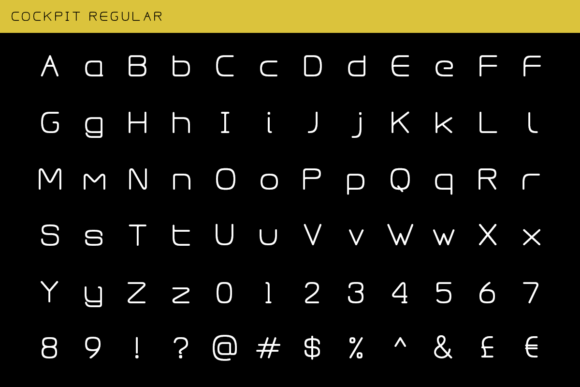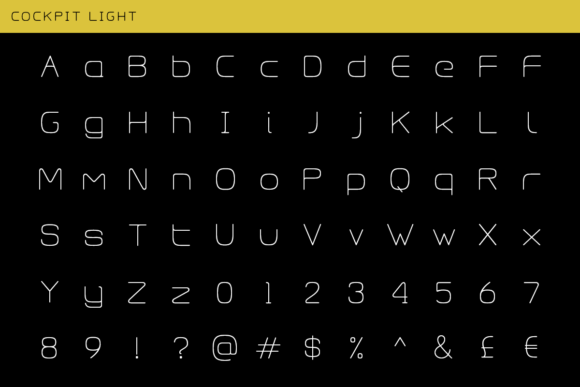
Cockpit Font: Elevate Your Design to New Heights
The name says it all – whether you are a jet pilot or a spacecraft fighter, this font will lift your creativity up to the sky! The Cockpit Font is a unique and stylish typeface that is perfect for designers and crafters looking to add a touch of adventure and excitement to their projects.
What is Cockpit Font?
The Cockpit Font is a modern sans-serif font that is inspired by the sleek and futuristic design of aircraft cockpits. Its clean lines, bold shapes, and precise curves make it a versatile font that can be used for a wide range of applications, from aviation-themed designs to futuristic and high-tech projects.
Key Features of Cockpit Font
- Unique and Stylish Design: The Cockpit Font has a distinctive and stylish design that sets it apart from other fonts. Its bold shapes and precise curves give it a futuristic and high-tech look that is perfect for designs that require a sense of adventure and excitement.
- Highly Versatile: The Cockpit Font is a highly versatile font that can be used for a wide range of applications, from aviation-themed designs to futuristic and high-tech projects. It’s perfect for designers and crafters who want to add a touch of excitement and adventure to their work.
- Easily Readable: Despite its bold and futuristic design, the Cockpit Font is easily readable, even at small sizes. This makes it perfect for use in body text, headings, and titles.
- Supports Multiple Languages: The Cockpit Font supports multiple languages, making it a great choice for designers and crafters who work with international clients or want to create designs that appeal to a global audience.
Use Cases for Cockpit Font
The Cockpit Font is perfect for a wide range of design projects, including:
- Aviation-themed Designs: The Cockpit Font is a natural fit for aviation-themed designs, such as posters, flyers, and brochures for airlines, airports, or aviation companies.
- Futuristic and High-Tech Projects: The Cockpit Font’s futuristic and high-tech design makes it perfect for projects that require a sense of innovation and excitement, such as tech startup branding, robotics, or artificial intelligence designs.
- Outdoor and Adventure Designs: The Cockpit Font’s bold and adventurous design makes it perfect for outdoor and adventure-themed designs, such as posters, flyers, and brochures for outdoor gear companies, hiking trails, or adventure travel companies.
Tips for Using Cockpit Font
Here are some tips for using the Cockpit Font in your designs:
- Use it as a Headline Font: The Cockpit Font is perfect for use as a headline font, where its bold and futuristic design can really make an impact.
- Pair it with a Sans-Serif Font: The Cockpit Font pairs well with other sans-serif fonts, such as Arial, Helvetica, or Open Sans. Try pairing it with a clean and simple font for body text to create a nice contrast.
- Experiment with Different Colors: The Cockpit Font looks great in a range of colors, from bold and bright to metallic and gradient. Experiment with different colors to find the one that works best for your design.
The Cockpit Font is a unique and stylish typeface that is perfect for designers and crafters looking to add a touch of adventure and excitement to their projects. Its bold and futuristic design makes it perfect for aviation-themed designs, futuristic and high-tech projects, and outdoor and adventure designs. With its highly versatile design, easily readable text, and support for multiple languages, the Cockpit Font is a great choice for any design project.